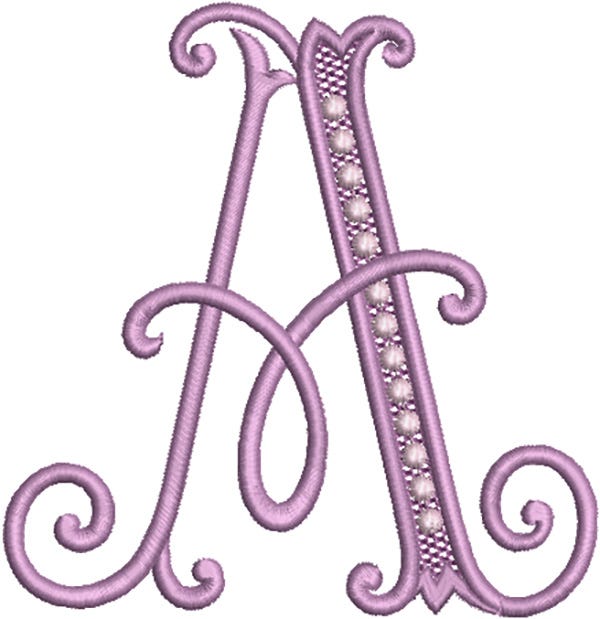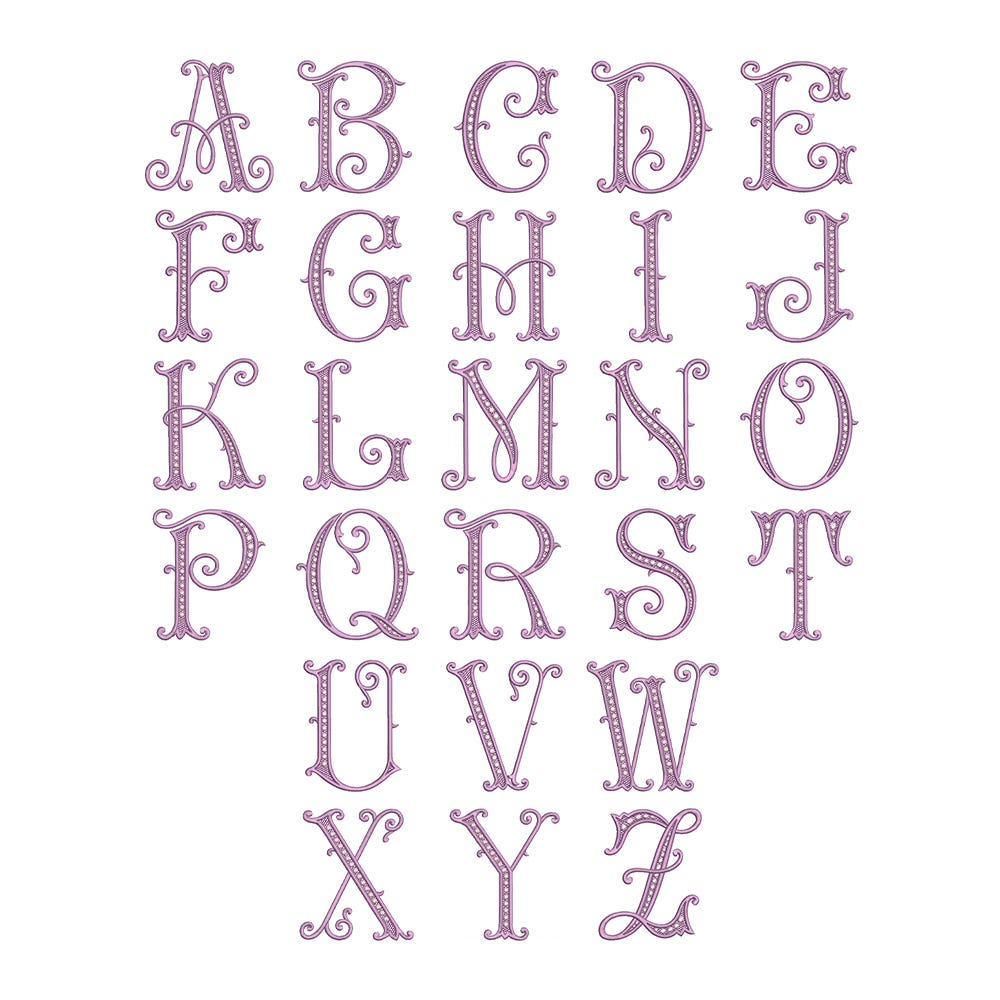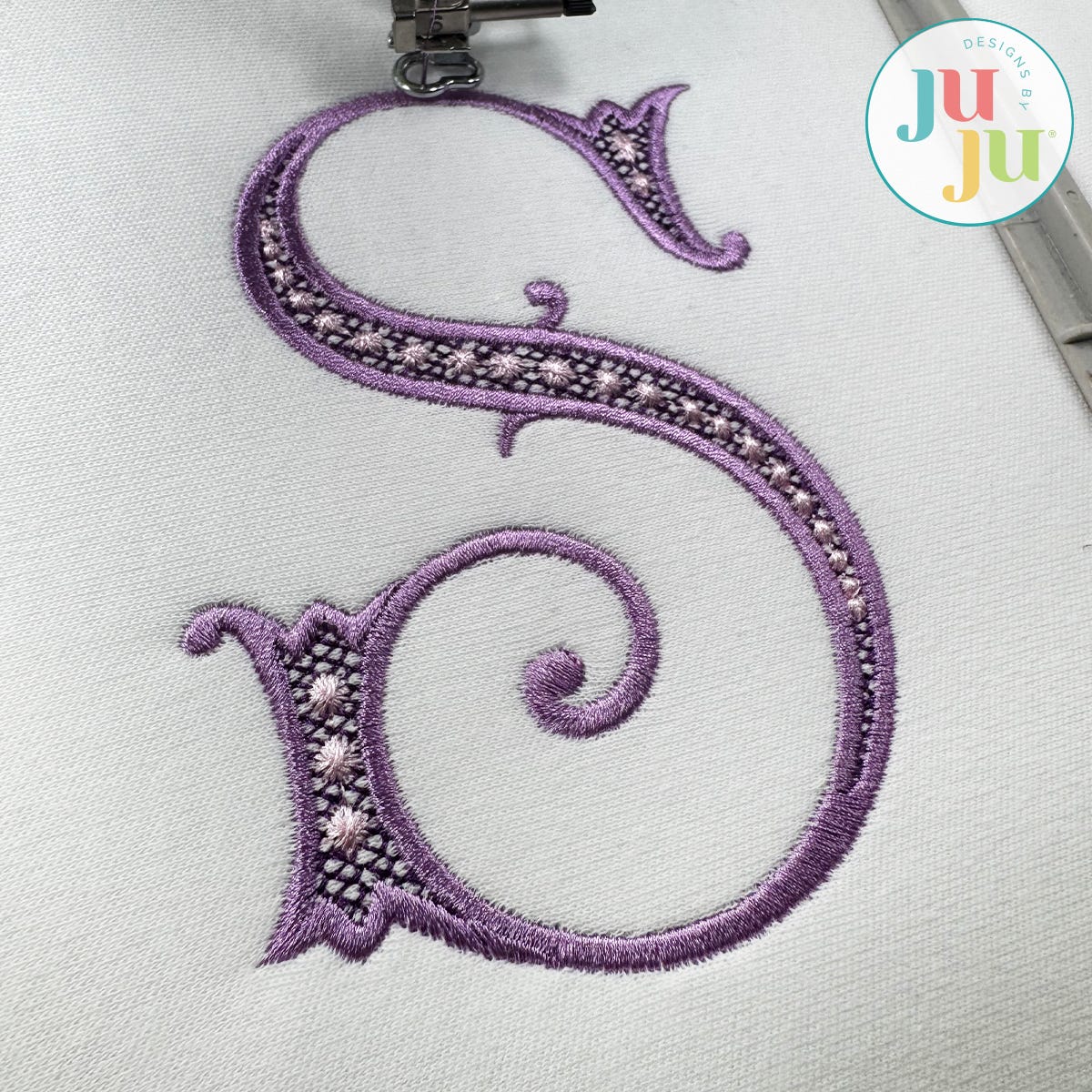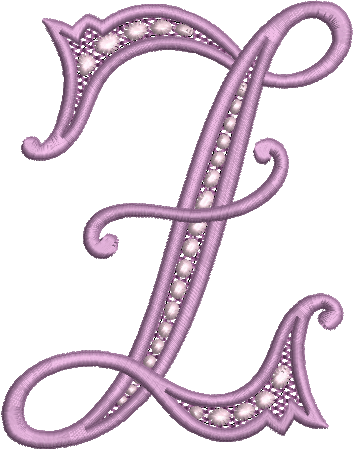
Lillian Satin Stitch Monogram Embroidery Font
Add delicate elegance to your stitching with our Lillian Monogram! This beautiful embroidery-only monogram features graceful decorative letters with ornamental curls and delicate details designed for up to three thread colors for a timeless, feminine look.
All of our monograms are 100% manually digitized to bring you maximum stitch quality.